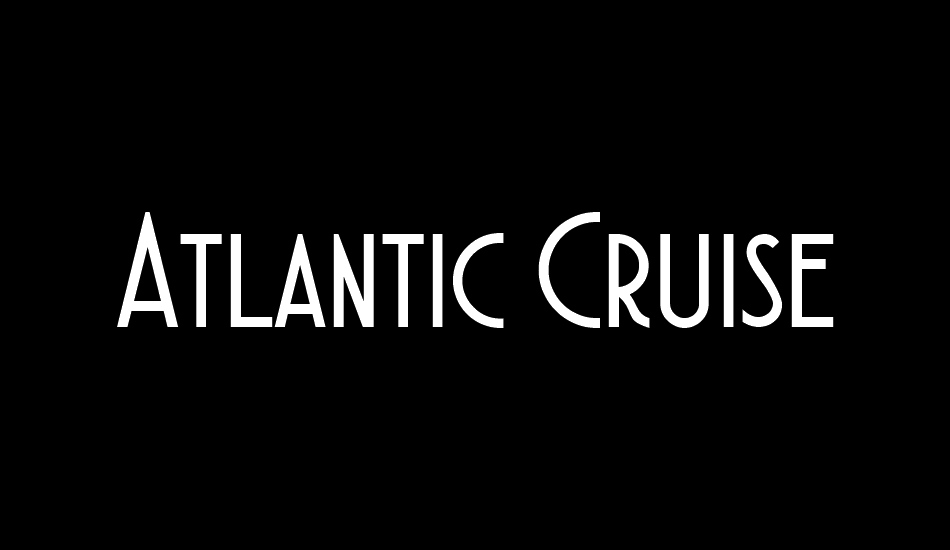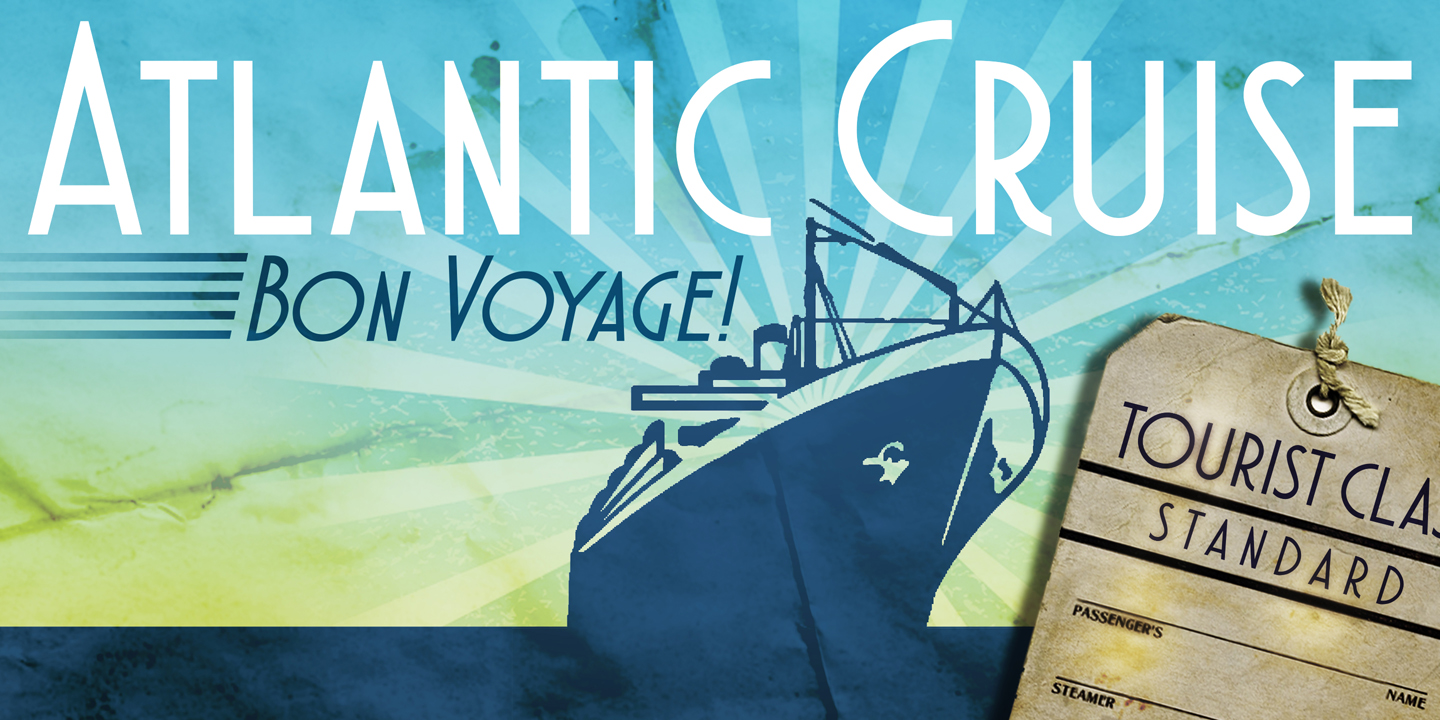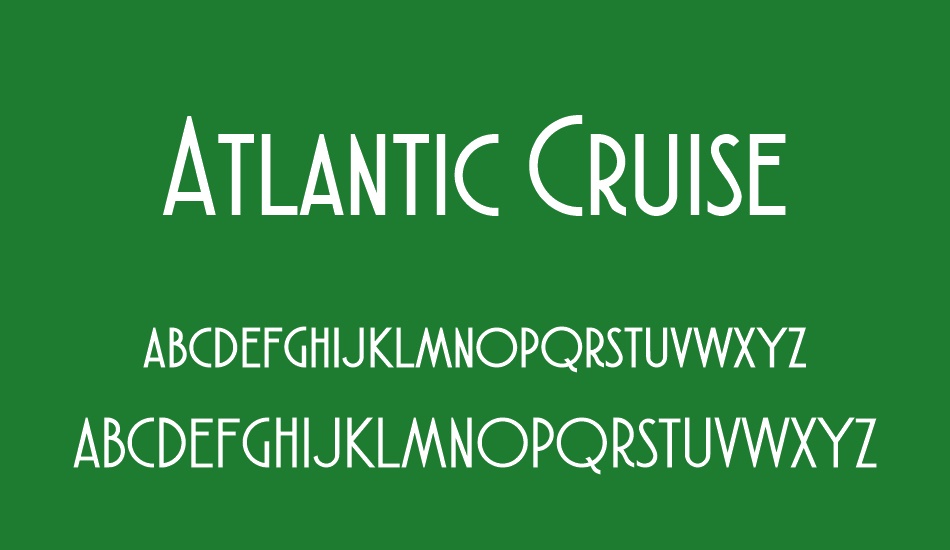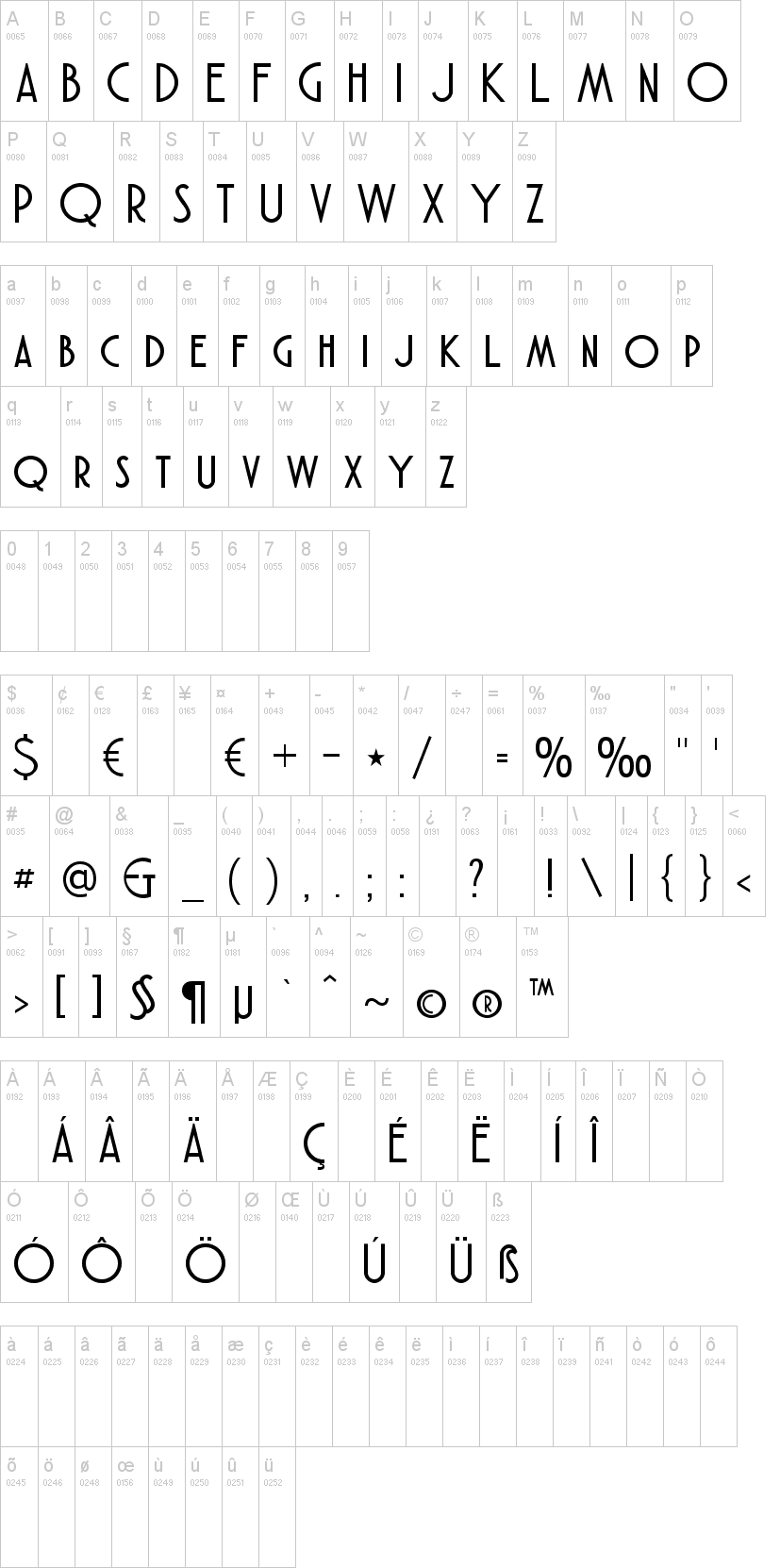
Atlantic Cruise Font
Atlantic Cruise Font - Web kustomtype’s “atlantic cruise” font is one of the fonts that was used in the 50’s for travel and cruise posters.
Web kustomtype’s “atlantic cruise” font is one of the fonts that was used in the 50’s for travel and cruise posters.